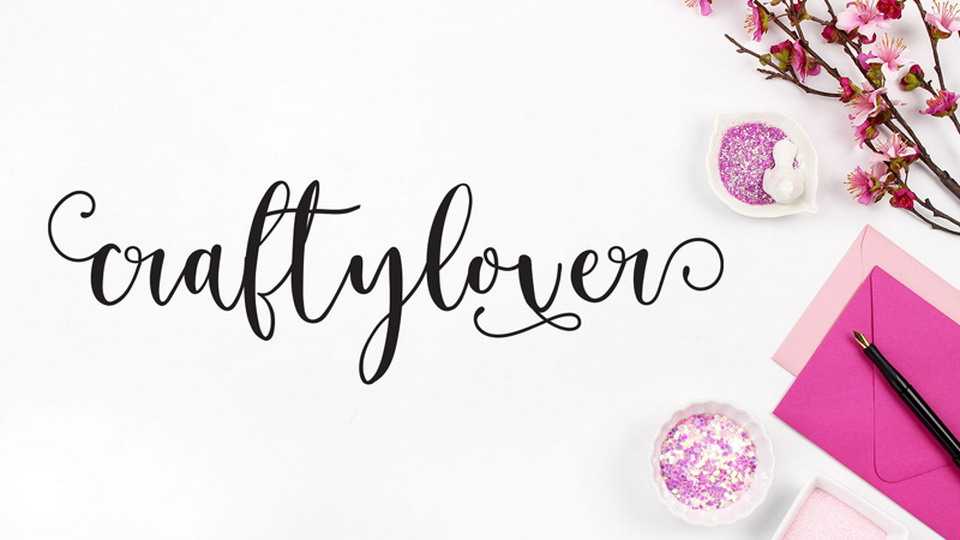
Download Craftylover font, a beautiful modern smooth script, with 4 stylistic alternates/swashes, ready to beautify your design. Craftylover font is suitable for wedding, feminine logo and branding and more.